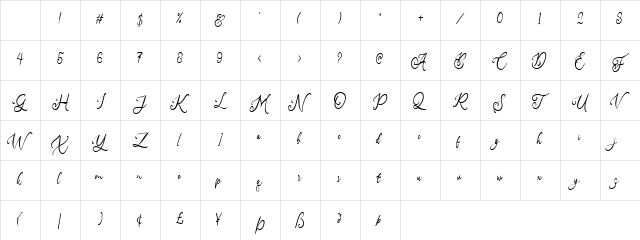
Complete Amerta Misty DEMO Regular glyph index. Displaying only characters natively supported by Amerta Misty DEMO Regular font.
Amerta Misty DEMO is a composed and adaptable typeface that performs quietly and consistently across a wide range of design contexts.